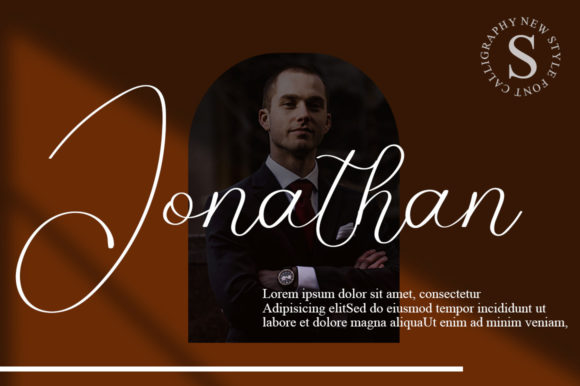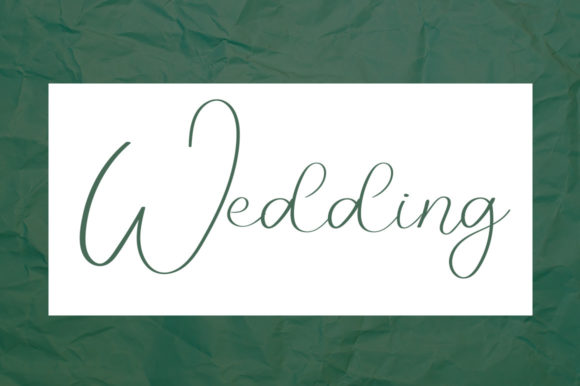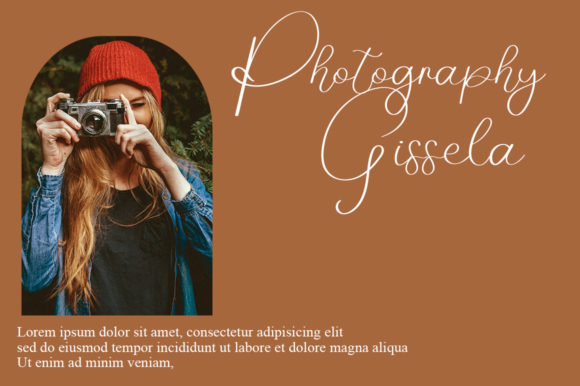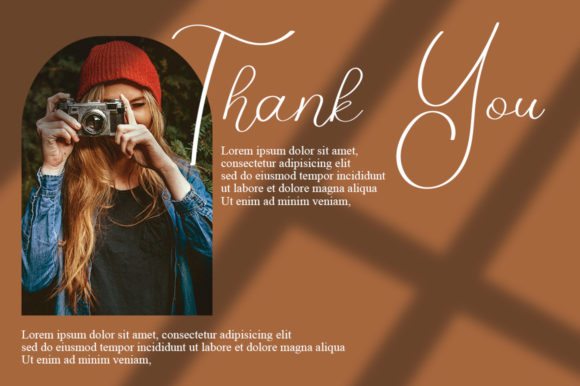
Introducing Family Caligraphy Font: Elevate Your Designs with Elegance
Are you a designer or crafter looking for a font that adds a touch of sophistication and elegance to your creative projects? Look no further than Family Caligraphy Font, a delicate and flowing handwritten font that is sure to make your designs come alive.
What is Family Caligraphy Font?
Family Caligraphy Font is a beautiful, handwritten font that is characterized by its elegant and flowing strokes. The font features well-balanced characters that are meticulously crafted to provide a sense of refinement and luxury. Whether you’re working on a branding project, a wedding invitation, or a craft project, Family Caligraphy Font is the perfect choice.
Key Features of Family Caligraphy Font
- Delicate and Elegant: Family Caligraphy Font is designed to add a touch of sophistication to your designs. Its delicate strokes and elegant curves make it perfect for projects that require a high level of refinement.
- Well-Balanced Characters: The font features well-balanced characters that are carefully crafted to provide a sense of harmony and consistency. This makes it easy to use and ensures that your designs look professional and polished.
- Versatile: Family Caligraphy Font matches a wide pool of designs, making it a versatile font that can be used for a variety of projects. Whether you’re working on a modern design or a traditional one, this font is sure to fit right in.
How to Use Family Caligraphy Font
Family Caligraphy Font is easy to use and can be incorporated into a variety of design projects. Here are a few ideas to get you started:
- Wedding Invitations: Add a touch of elegance to your wedding invitations with Family Caligraphy Font. The font’s delicate strokes and elegant curves make it perfect for formal events.
- Branding Projects: Use Family Caligraphy Font to add a touch of sophistication to your branding projects. The font’s well-balanced characters and elegant strokes make it perfect for logos, business cards, and other marketing materials.
- Craft Projects: Family Caligraphy Font is also perfect for craft projects, such as scrapbooking, card making, and DIY crafts. The font’s delicate strokes and elegant curves add a touch of elegance to any project.
Why Choose Family Caligraphy Font?
There are many fonts available that claim to be elegant and sophisticated, but Family Caligraphy Font stands out from the rest. Here are a few reasons why:
- Unique Design: Family Caligraphy Font features a unique design that is both elegant and refined. The font’s delicate strokes and well-balanced characters make it perfect for designers and crafters who want to add a touch of sophistication to their projects.
- High-Quality: The font is crafted with high-quality techniques to ensure that it looks professional and polished. This makes it perfect for commercial projects and designs that require a high level of refinement.
Family Caligraphy Font is a beautiful and elegant handwritten font that is perfect for designers and crafters who want to add a touch of sophistication to their projects. With its delicate strokes, well-balanced characters, and versatile design, this font is sure to make your designs come alive. Whether you’re working on a wedding invitation, a branding project, or a craft project, Family Caligraphy Font is the perfect choice.